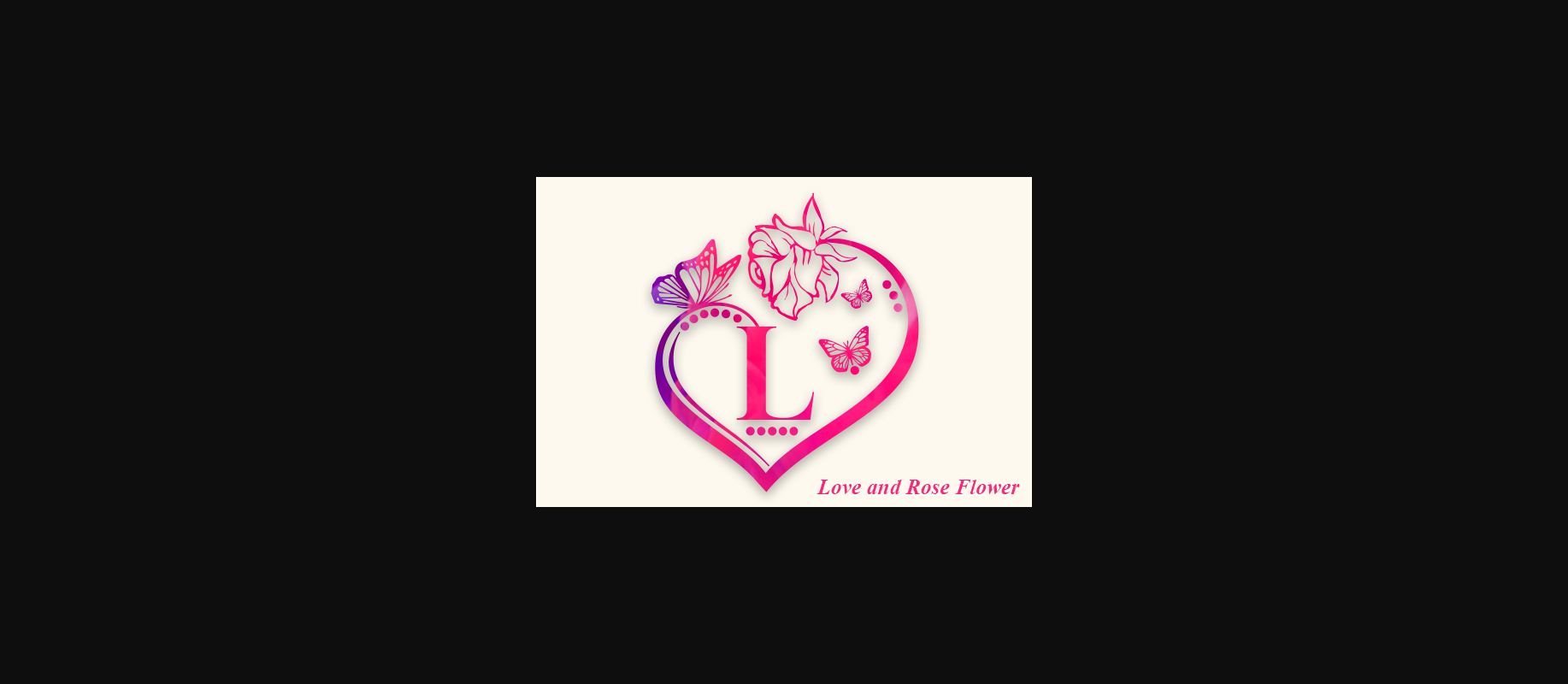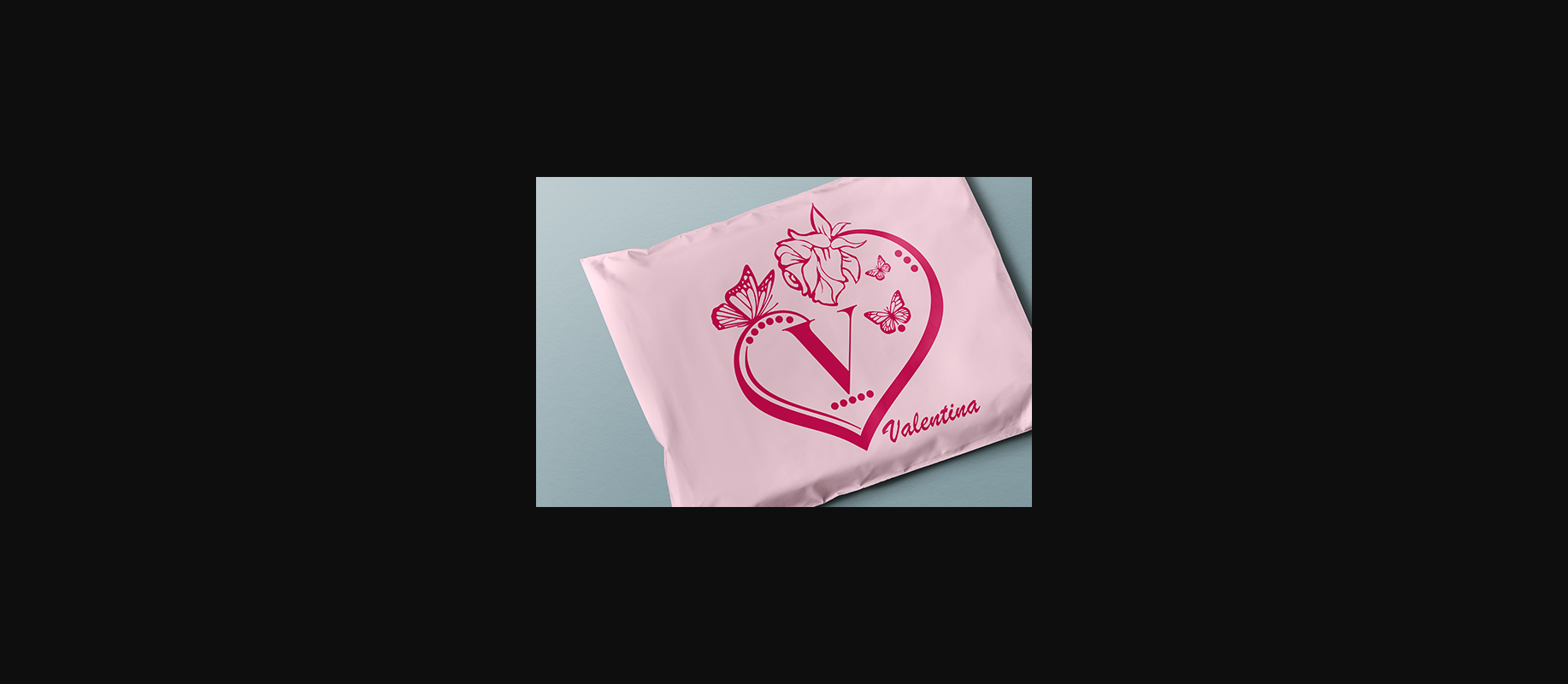
About Love and Rose Flower Font
Love and Rose Flower is an elegant decorative font, featuring lovely ornaments. Fall in love with its authentic feel and use it to create gorgeous wedding invitations, beautiful stationary art, eye-catching social media posts, and cute greeting cards.